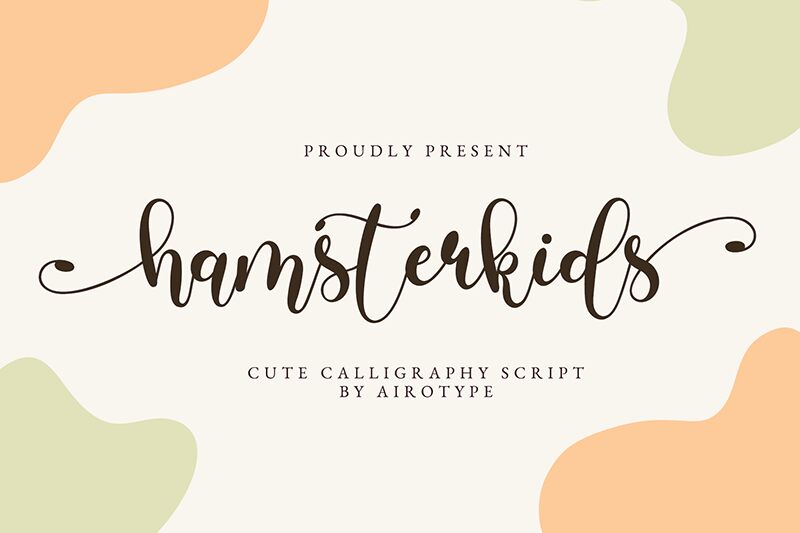
Hamsterkids
Hamsterkids font by Airotype Studio is a beautiful free calligraphy font with artistic markings. The elegant, flowing, and carefully crafted characters can be used to add a personal human touch to both digital and printed projects equally.
Use it in signature designs, invitations, greeting cards, packaging labels, advertisements, posters, social media posts, branding and visual identity design.